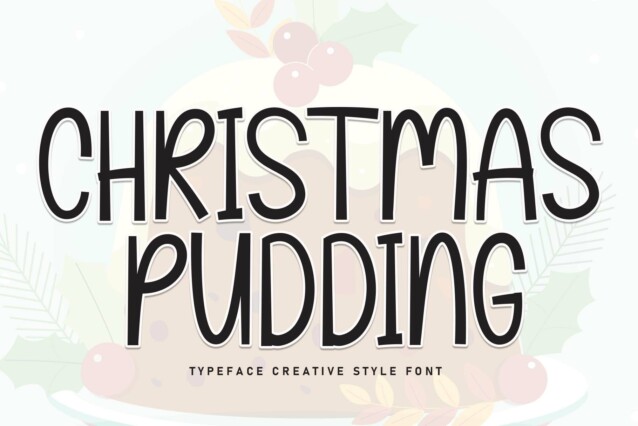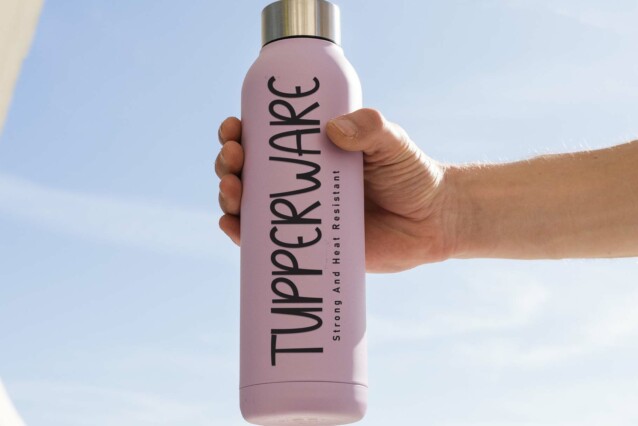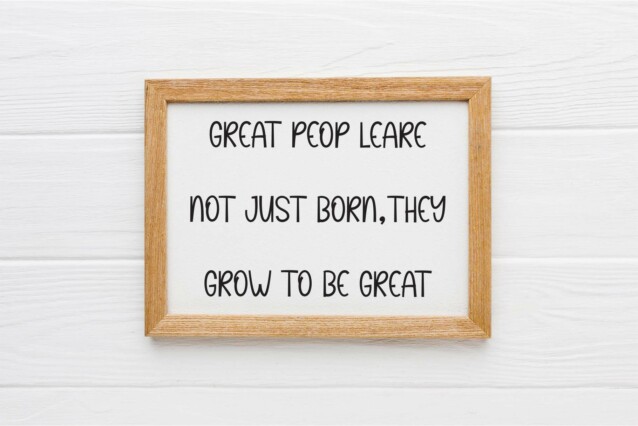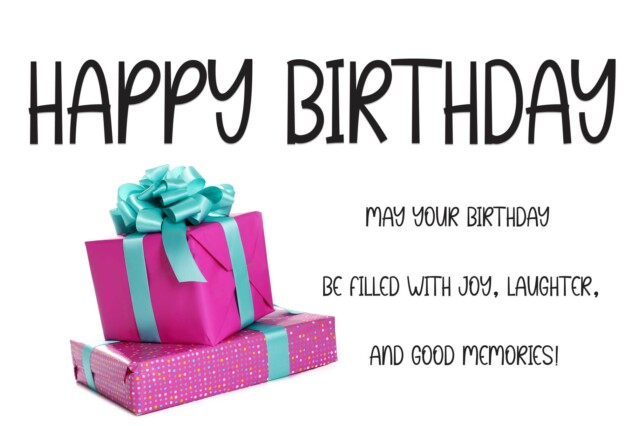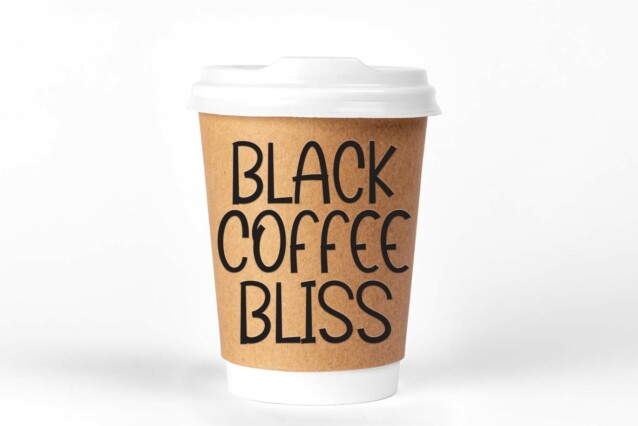
Christmas Pudding Display Font
Christmas Pudding Display Font is a fun and friendly handwritten font. Its quirky yet versatile look will help you create a wide range of projects.